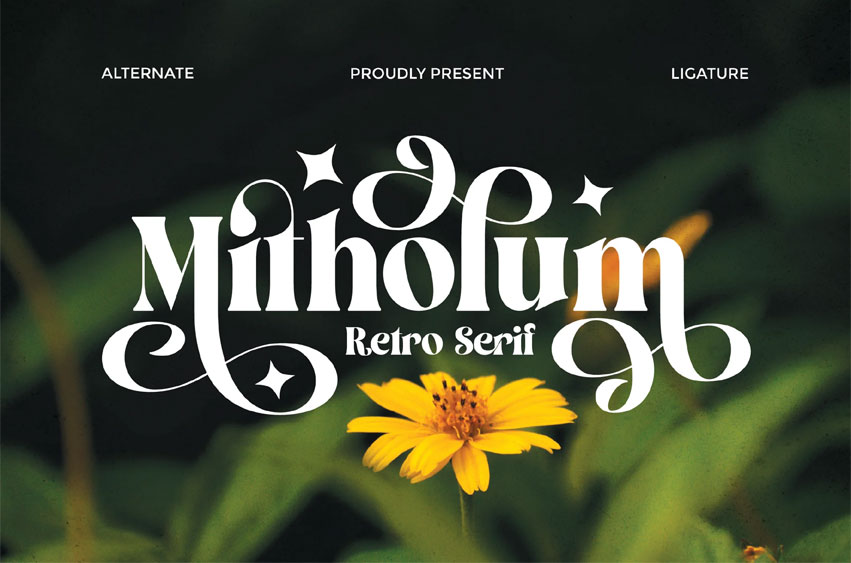
Mitholum Font
Mitholum Font is a retro serif font that captures the essence of classic design with a bold, stylish twist. Featuring strong serifs, sharp curves, and nostalgic charm, MITHOLUM brings personality and flair to every letterform. Perfect for brand identities, logo designs, posters, packaging, and large display typography, MITHOLUM stands out with its confident presence and vintage appeal. It’s a go-to typeface for designers seeking to evoke a sense of timelessness while still feeling fresh and eye-catching.
Its retro-inspired details and unique rhythm make it versatile for a range of creative projects—from boutique branding to editorial headlines. Features:
• Alternates & Ligatures
• Multilingual Support Use MITHOLUM to create designs that feel bold, memorable, and full of vintage personality.
Who Should Use MITHOLUM?
MITHOLUM is made for creatives and brands that want to bring retro energy and bold elegance into their work. Its vintage serif style makes it ideal for:
• Brand Designers looking to build unique, character-rich identities
• Logo Designers who want strong, memorable letterforms
• Display & Editorial Creators in need of standout headlines or titles
• Packaging Designers aiming for a nostalgic yet premium look
• Fashion, Lifestyle & Boutique Brands seeking a timeless, stylish edge
If your project calls for retro vibes with modern clarity, MITHOLUM is the perfect choice to make your work stand out.
A Must-Have Font for Brand, Logo, and Display Creators and Designers
MITHOLUM is a must-have for designers who want to blend vintage charm with bold visual impact. With its strong retro-inspired serifs and confident letterforms, MITHOLUM is perfect for branding, logos, packaging, posters, and display design. Whether you’re building a nostalgic brand identity or crafting eye-catching headlines, this font brings timeless character and standout style to every project. It’s the perfect choice for creatives who value bold aesthetics with a classic soul.
Why Choose MITHOLUM for Brand, Logo, and Display Projects?
MITHOLUM offers the perfect blend of retro style and bold sophistication, making it an exceptional choice for branding, logo design, and display typography. With its strong, vintage-inspired serifs and distinct letterforms, it commands attention while retaining a sense of timelessness.
• Unique Character: MITHOLUM’s distinctive serifs and curves give your design a standout personality.
• Versatile: Perfect for logos, headlines, packaging, and large-scale displays—whether in print or digital.
• Memorable & Timeless: It brings both a nostalgic touch and modern clarity, ensuring your project remains relevant and eye-catching.
• High Impact: Ideal for brands looking for a strong visual presence with vintage charm that captures attention instantly.